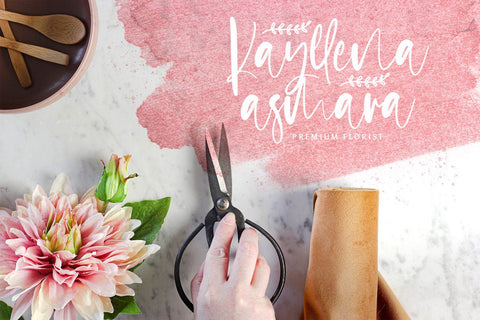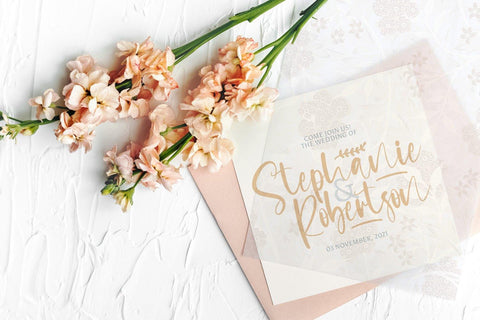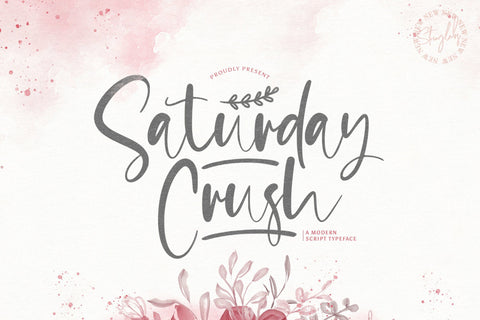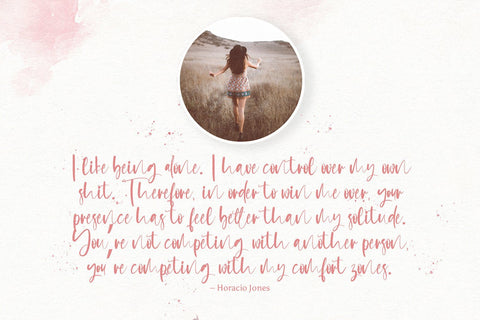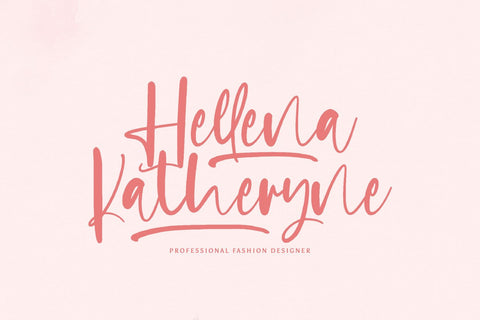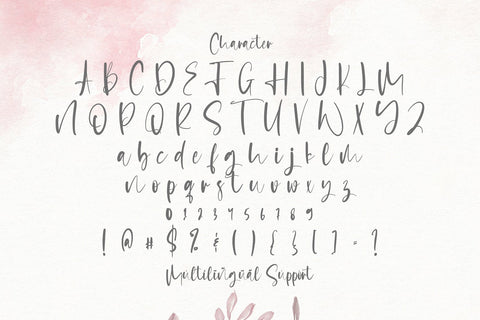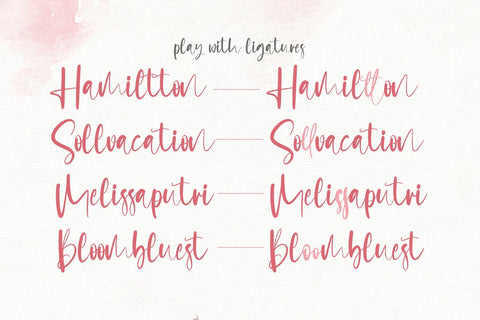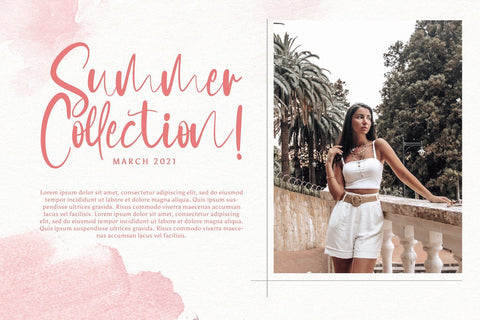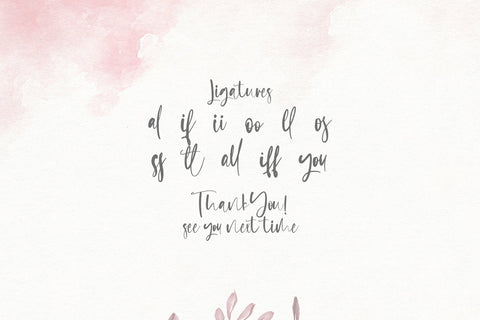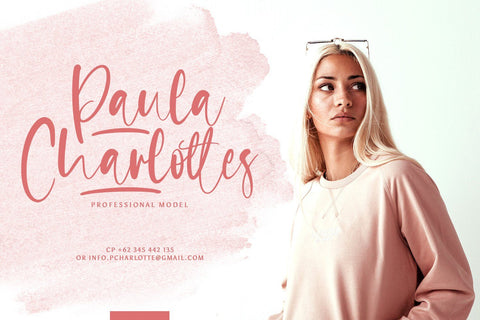
Saturday Crush - Handwritten Font
Introducing Saturday Crush - Handwritten Font
Saturday Crush is a delicate, elegant and flowing handwritten font. It has beautiful and well balanced characters and as a result, it matches a wide pool of designs. Add it to your most creative ideas and notice how it makes them come alive!